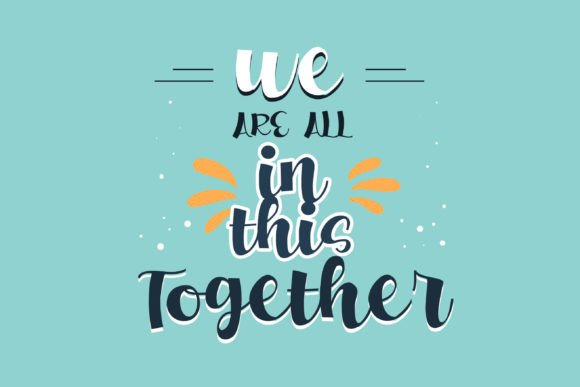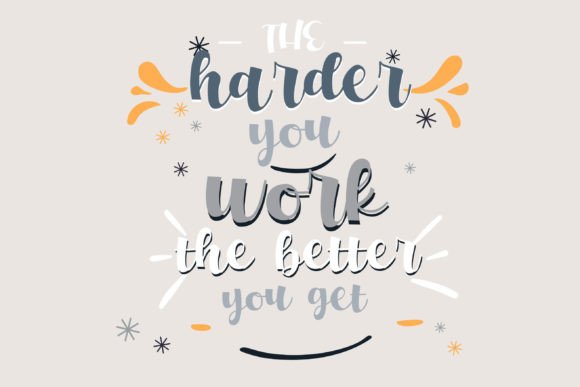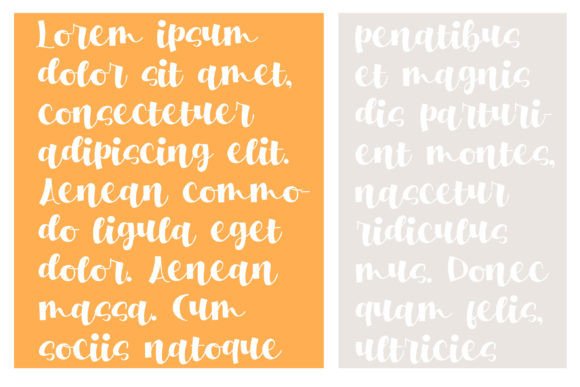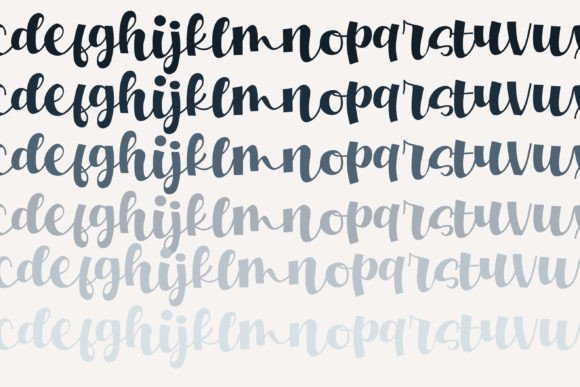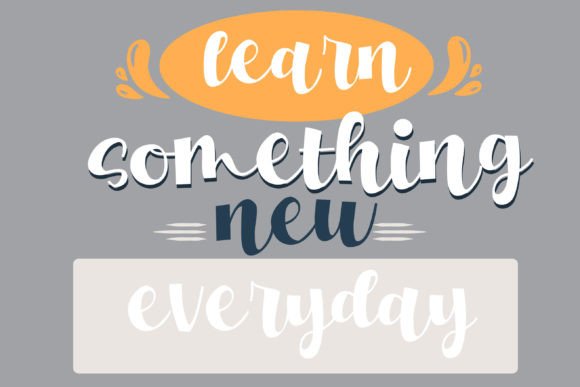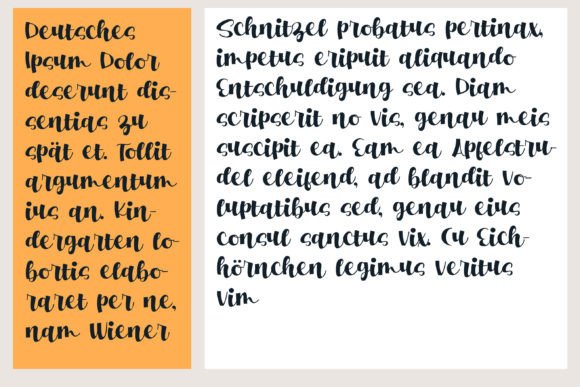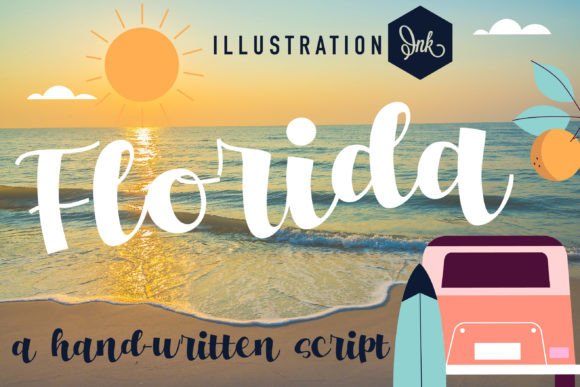
Discover the Elegance of Florida Font: A Perfect Choice for Luxurious Designs
Are you looking for a font that exudes elegance and sophistication? Look no further than the Florida Font. This exquisite and attractive script font is perfect for any project that requires a touch of luxury and refinement. From wedding invitations to branding projects, Florida Font is sure to make a lasting impression.
The Characteristics of Florida Font
Florida Font is a script font that boasts fluid and graceful letters, with intricate details that set it apart from other fonts. The letters are designed to flow smoothly into one another, creating a sense of continuity and harmony. The font’s elegant and refined appearance makes it perfect for designs that require a touch of sophistication.
What Makes Florida Font Stand Out
So, what makes Florida Font stand out from other script fonts? Here are a few key characteristics:
- Intricate details: Florida Font features intricate details that add a touch of luxury and refinement to any design.
- Fluid letters: The letters in Florida Font are designed to flow smoothly into one another, creating a sense of continuity and harmony.
- Elegant and refined: Florida Font has an elegant and refined appearance that makes it perfect for designs that require a touch of sophistication.
Uses for Florida Font
Florida Font is a versatile font that can be used for a variety of design projects, including:
- Wedding invitations: Florida Font is perfect for wedding invitations, as it adds a touch of elegance and sophistication to the design.
- Branding projects: Florida Font can be used for branding projects, such as logos and business cards, to create a luxurious and refined image.
- Stationery: Florida Font can be used for stationery, such as letterheads and envelopes, to add a touch of elegance to correspondence.
Tips for Using Florida Font
Here are a few tips for using Florida Font in your designs:
- Use it sparingly: Florida Font is a elegant and refined font, so it’s best to use it sparingly to avoid overwhelming the design.
- Pair it with a sans-serif font: Pairing Florida Font with a sans-serif font can create a nice contrast and add visual interest to the design.
- Experiment with different sizes: Florida Font can be used at a variety of sizes, from large headings to small body text.
In conclusion, Florida Font is a beautiful and elegant script font that is perfect for designs that require a touch of luxury and refinement. Its intricate details, fluid letters, and elegant appearance make it a great choice for wedding invitations, branding projects, and stationery. By following the tips outlined above, you can use Florida Font to create stunning designs that are sure to impress.
Get Creative with Florida Font